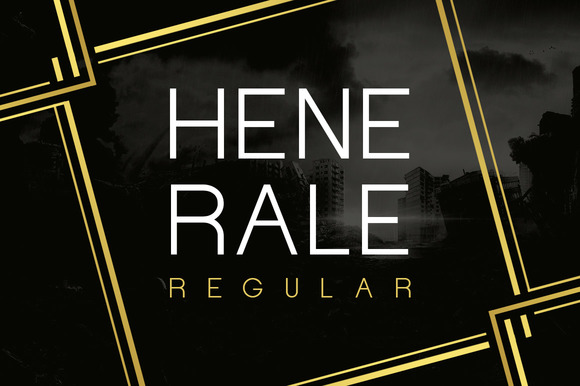
Introducing Henerale Regular Font, the striking geometric sans serif font that adds a touch of boldness and elegance to your designs. Crafted by the renowned SNK, Henerale is more than just a font; it's a design masterpiece that empowers you to create captivating visuals that leave a lasting impression.
With its sharp angles and clean lines, Henerale Regular Font exudes a sense of modernity and sophistication. Whether you're designing logos, headings, invitations, t-shirt designs, posters, labels, book covers, or any other creative project, Henerale's versatility knows no bounds.
Immerse yourself in the world of Henerale and discover endless possibilities. Its captivating structure draws attention, making your designs stand out from the crowd. Each letterform is meticulously crafted to ensure clarity and legibility, even at small sizes, ensuring your message is conveyed with impact.
Henerale Regular Font is an essential tool for designers seeking to make a statement. Its bold and confident presence adds a touch of drama and intrigue to any project. Unleash your creativity and let Henerale elevate your designs to new heights.
Say goodbye to ordinary fonts and embrace the extraordinary with Henerale Regular Font. Its distinct geometric style adds a touch of modernity to traditional designs while retaining a timeless appeal. As a versatile and captivating font, Henerale blends seamlessly with various design aesthetics, making it the perfect choice for designers of all levels.
Don't settle for mediocrity; choose Henerale Regular Font and elevate your designs to new heights. Its unique charm and versatility are sure to captivate your audience and leave a lasting impression. Experience the power of geometric elegance with Henerale today and unlock a world of creative possibilities.